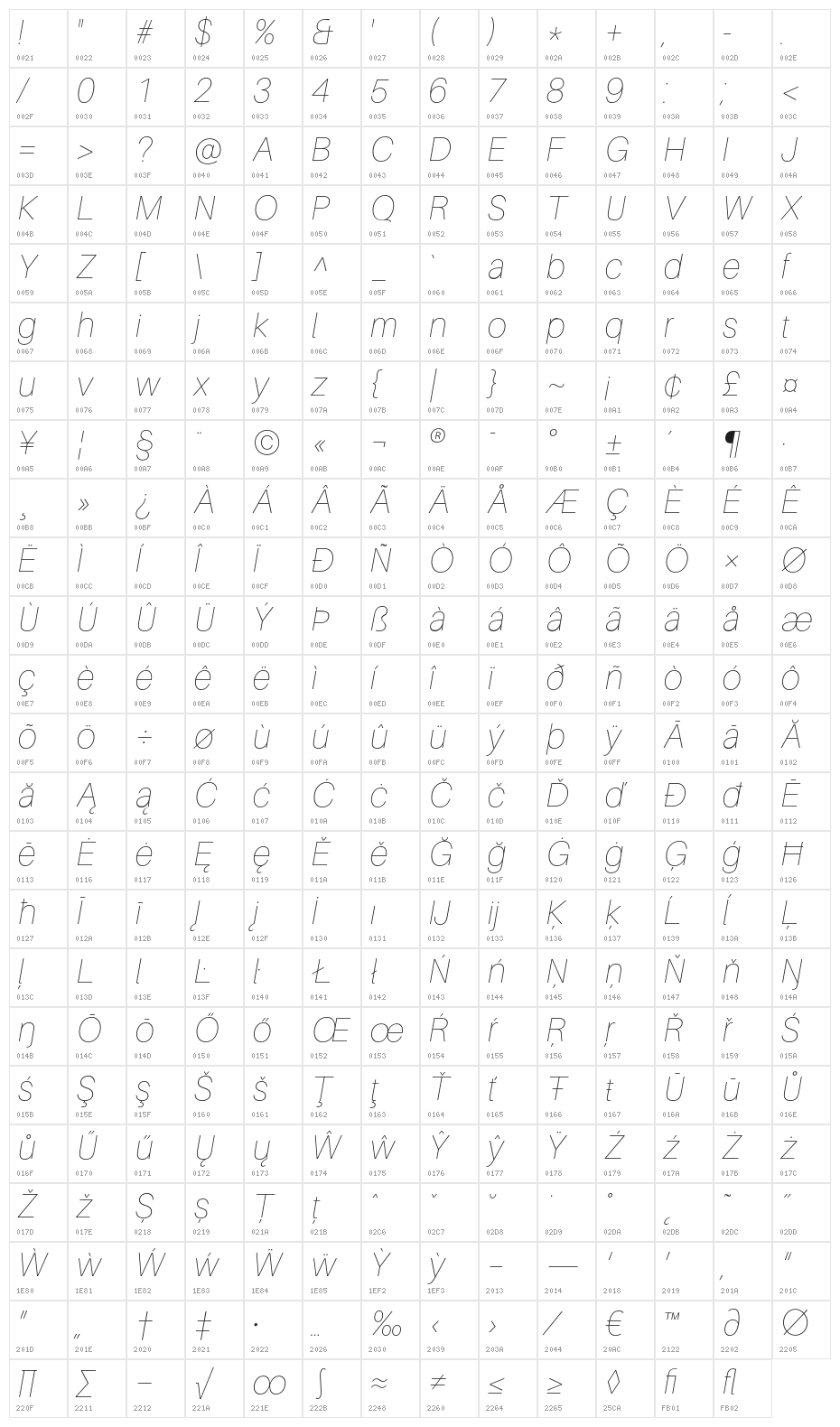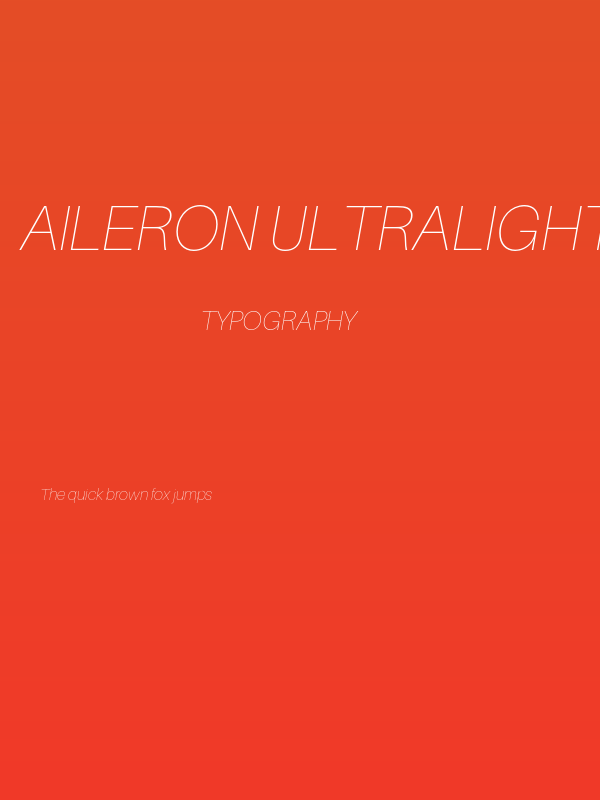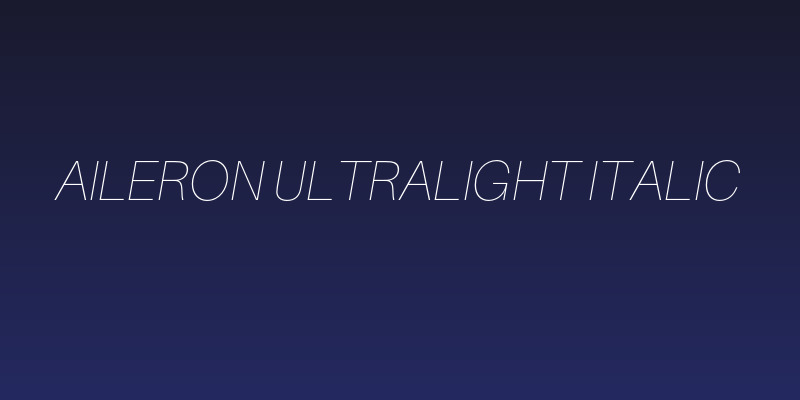
Aileron UltraLight Italic Font
Aileron UltraLight Italic Description
This font features a sleek and modern design with ultra-light strokes that give it an airy and elegant appearance. The italic style adds a dynamic and sophisticated touch, making it suitable for contemporary design projects. The characters are well-proportioned with a consistent slant, enhancing readability while maintaining a stylish aesthetic. The numerals and special characters are designed with the same attention to detail, ensuring uniformity across all elements. Its minimalist approach makes it versatile for various applications, from digital to print media.
| Proposed Projects | Ideal for fashion magazines, modern branding, minimalist websites, and elegant invitations. |